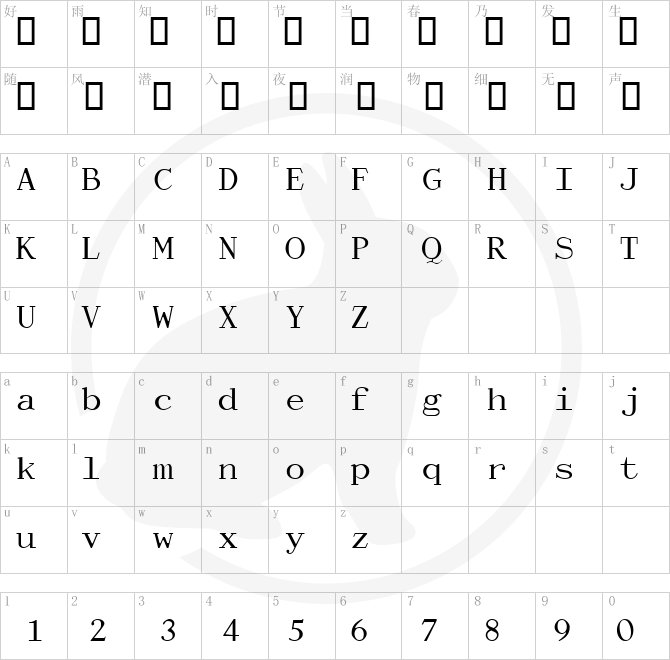
- Font Name:Dactylographe (Unregistered)
Dactylographe-Unregistered-.ttf is a very beautiful artistic font, Dactylographe-Unregistered-.ttf is widely used in the design and printing of various books and pictures,Dactylographe-Unregistered-.ttf has a strong visual impact,Dactylographe-Unregistered-.ttf is a commonly used font in newspapers, magazines and books, and is used in posters, e-commerce Poster design, store design, logo design, font design and other fields.Dactylographe-Unregistered-.